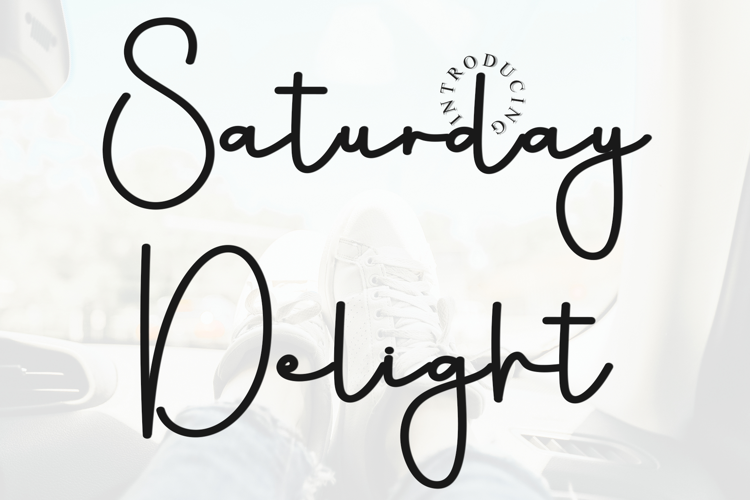
Saturday Delight
Saturday Delight is a beautiful and eye-catching font designed with a soft, unique touch. Its distinctive strokes give it a special character, making it meaningful and versatile for future use. With various characters, it’s perfect for design projects, crafts, and other creative works.